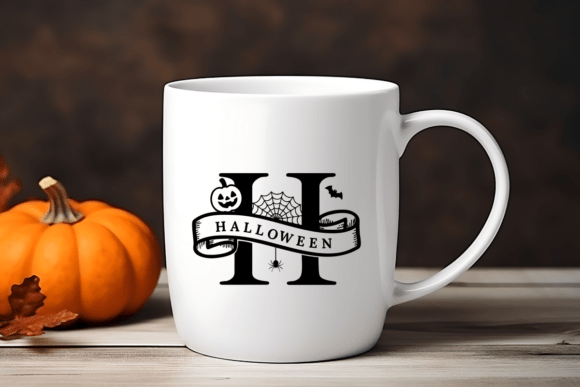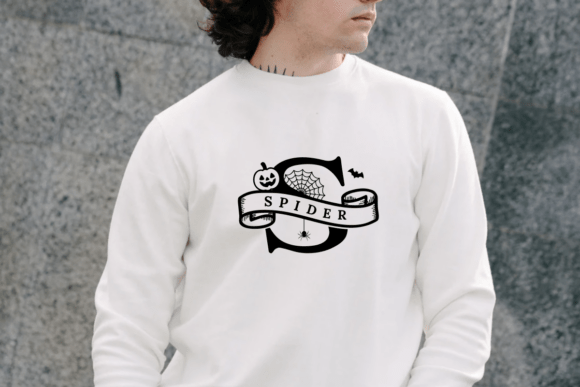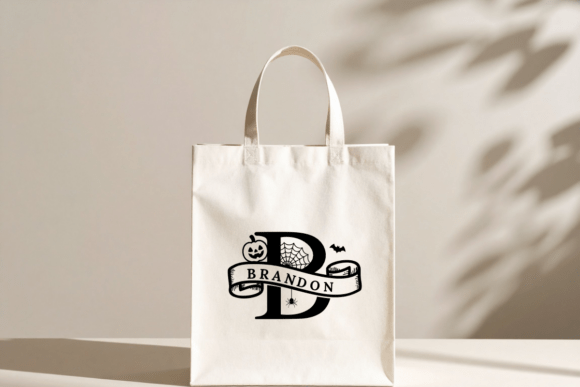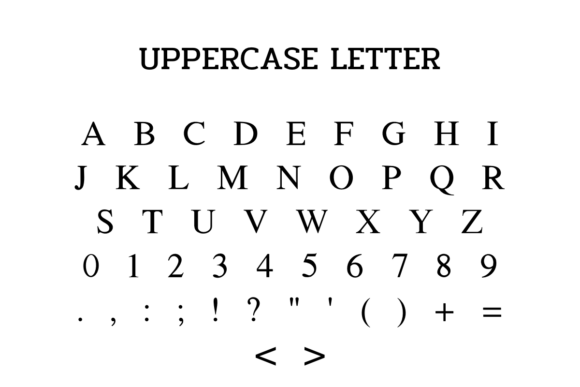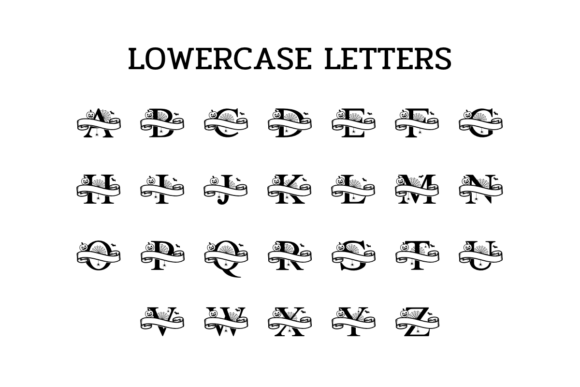
Introduction to Macabre Halloween Font
As the sun sets on the spookiest night of the year, creatives everywhere are itching to unleash their darkest imagination. You’ve spent hours perfecting your Halloween costume, crafting the perfect spooky atmosphere, and now it’s time to bring your design to life. The right font can make all the difference, and that’s where the Macabre Halloween Font comes in – a free download that’s sure to send shivers down the spines of your audience.
This high-quality font is a game-changer for designers, offering a unique blend of elegance and eeriness that’s perfect for any creative project. With a transparent background, you can easily integrate it into your designs, from social media posts to greeting cards, and everything in between. Whether you’re a seasoned pro or a design newbie, the Macabre Halloween Font is a valuable resource that’s sure to elevate your next project.
Key Features of Macabre Halloween Font
- Unique, spooky, and eerie typography perfect for Halloween-themed designs and decorations.
- Transparent background allows for easy integration with various design elements and backgrounds.
- High-resolution design (300 DPI) for crisp and clear display on various devices and print materials.
- Perfect for designers and artists working on Halloween-themed projects, such as posters, invitations, and digital art.
- Unique, hand-drawn design elements and characters add a personal touch to any creative project.
Honest Review: Macabre Halloween Font
I recently stumbled upon the Macabre Halloween Font while searching for a design resource for my next creative project. I was impressed with the free download and high-quality design that I got.
What works well about this font is its versatility and spooky vibe, making it perfect for Halloween-themed designs. The transparent background is a great feature, allowing for seamless integration with any design. ✨ The font is also highly customizable, making it easy to adjust to your desired style.
Here are some key features that I appreciated:
- High-quality design with a spooky vibe
However, there are some limitations to consider: ⚠️ The font is only available in a limited number of styles, which may not be suitable for all design projects. Additionally, the font may not be compatible with all design software.
Overall, I’m impressed with the Macabre Halloween Font and would recommend it to anyone looking for a spooky design resource for their next creative project. Just be aware of the limitations mentioned above.
To get the most out of the Macabre Halloween Font, use it in conjunction with other design resources, such as spooky graphics and Halloween-themed images. Experiment with different font sizes, colors, and alignments to create a unique and captivating design.
The Macabre Halloween Font is ideal for creative projects, such as Halloween invitations, party decorations, and spooky greeting cards. It’s also perfect for designers who want to add a touch of eeriness to their designs without overdoing it.
Creepster
Creepster is a free, high-quality font that is ideal for design projects that require a spooky and mysterious vibe. It features a unique, hand-drawn design with a transparent background, making it perfect for use on design resources like invitations, posters, and more. When to use: For a creepy and eerie atmosphere, Creepster is a great alternative to Macabre Halloween Font. It compares to Macabre Halloween Font in terms of its spooky design, but Creepster has a more intricate and detailed feel.